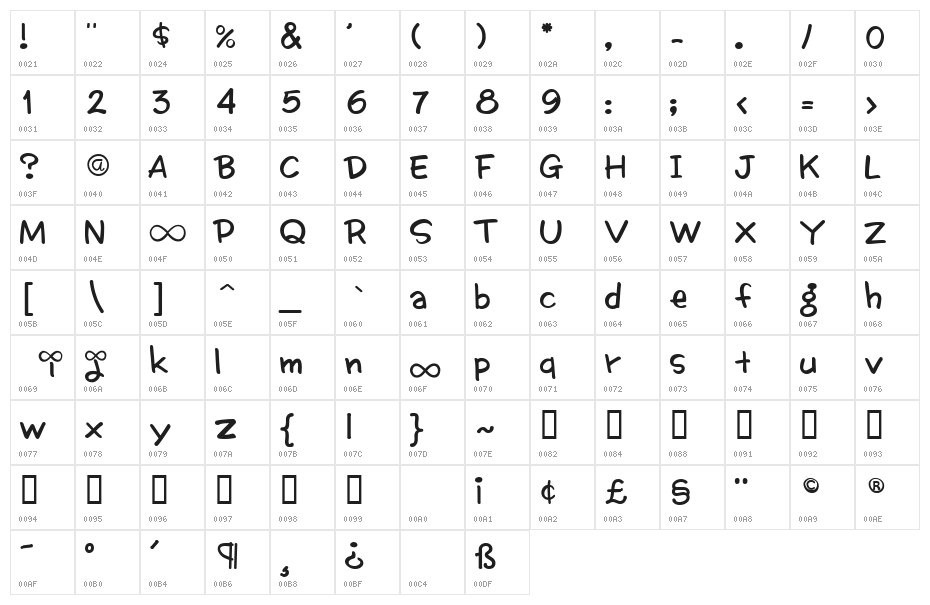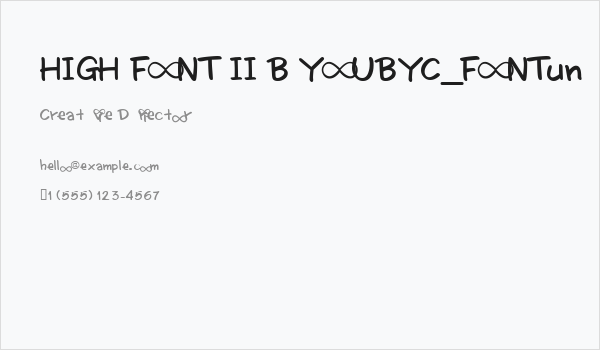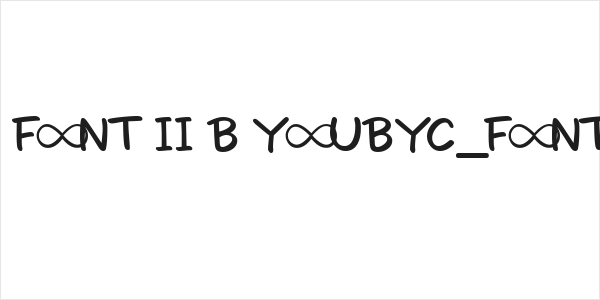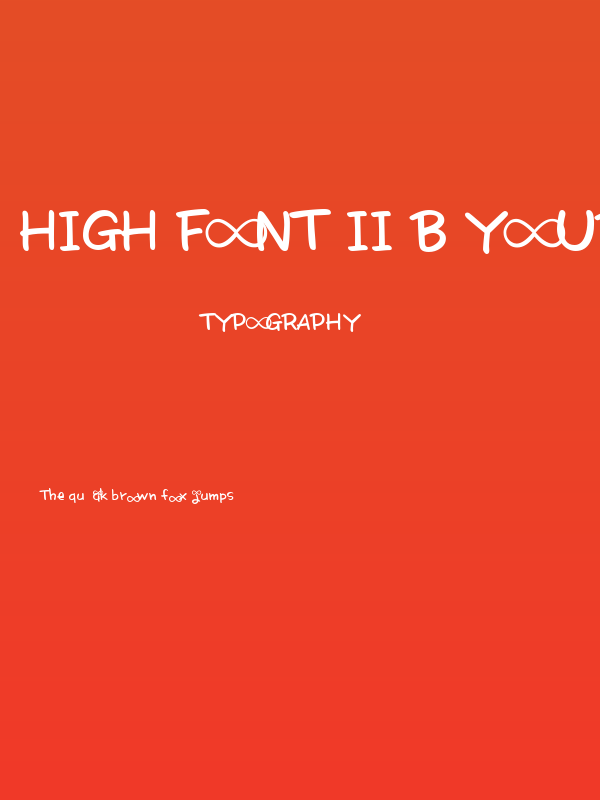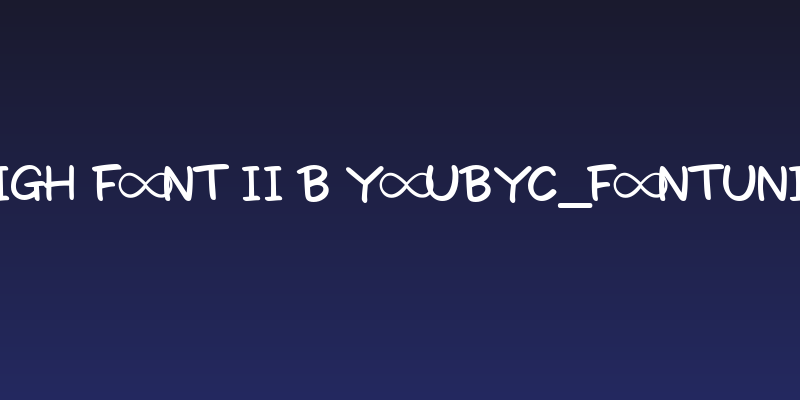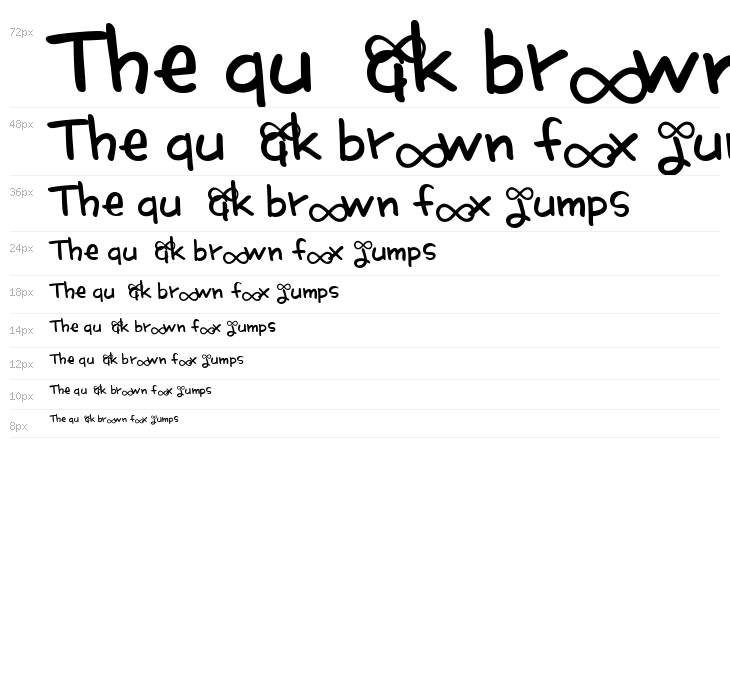
HIGH FONT II B YOUBYC_FONTunik Font
HIGH FONT II B YOUBYC_FONTunik Description
This playful and whimsical font features a handwritten style with a casual, friendly appearance. The characters are rounded and slightly irregular, giving them a lively and informal feel. The uppercase and lowercase letters maintain a consistent style, with some unique variations in certain characters, such as the looping 'g' and 'y'. The numbers and special characters follow the same playful design, making this font suitable for creative and fun projects. Its overall appearance is approachable and engaging, perfect for capturing attention in a lighthearted manner.